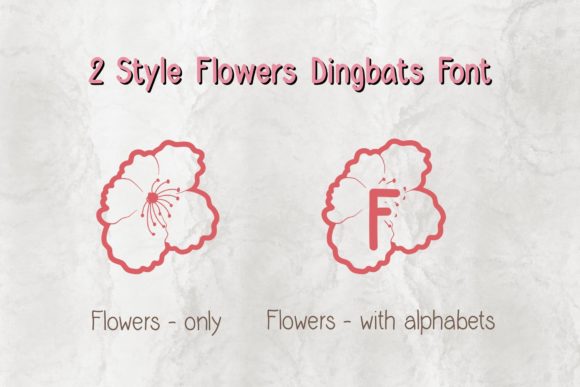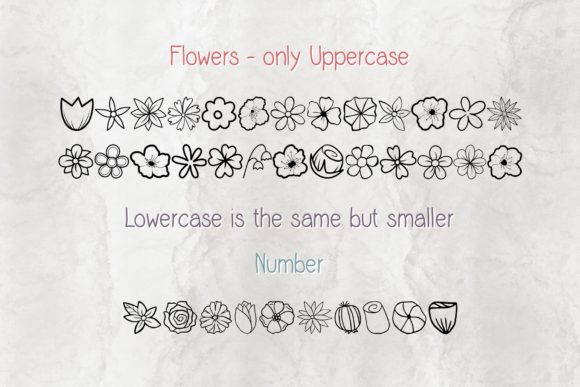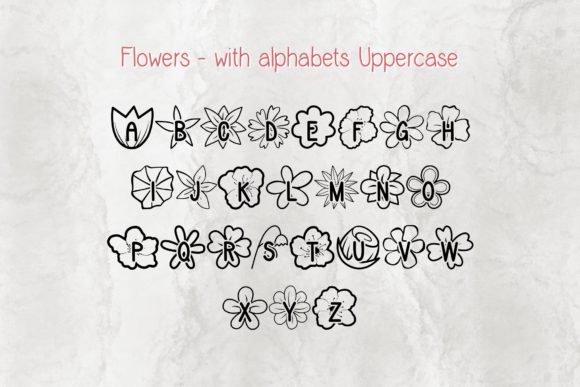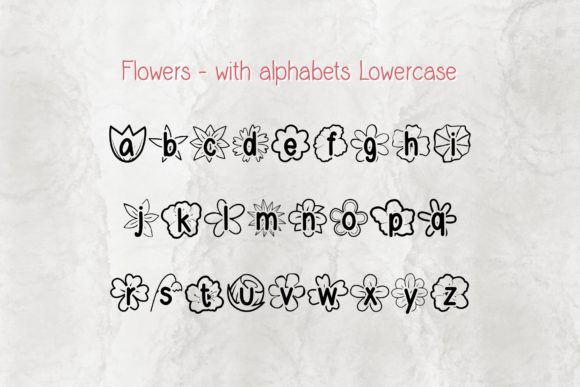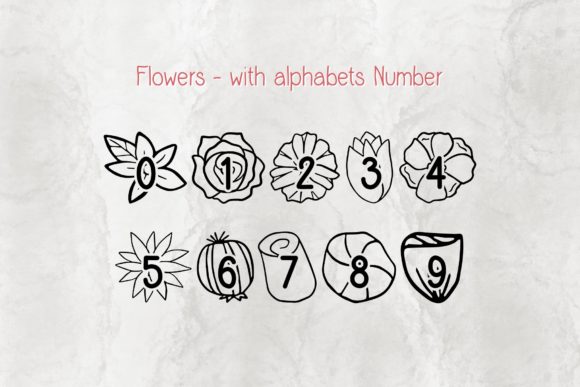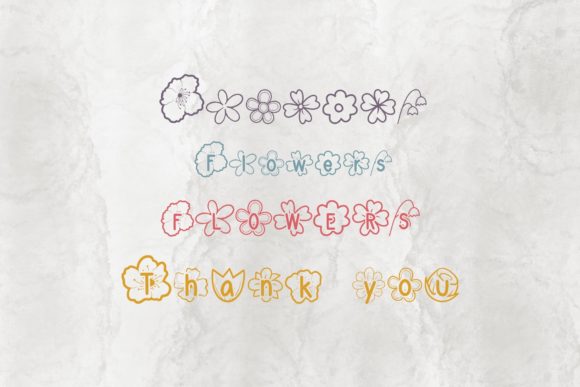
The Sweetest Font Duo: A Deep Dive into Flowers Font
I’ll never forget the time I was working on a branding project for a local florist, and I just couldn’t find the perfect font to capture the essence of their business. The client wanted something cute, sweet, and playful, but also elegant and sophisticated. That’s when I stumbled upon Flowers Font, a charming duo font that includes dingbats and decorative elements. It was love at first sight! 💐
An Honest Review of Flowers Font
- ✨ The font’s playful and whimsical vibe is perfect for a wide range of creative projects, from logos and branding to social media graphics and DIY crafts.
- ✅ The dingbats and decorative elements add a touch of elegance and sophistication, making it suitable for more formal projects as well.
- 💕 The font’s versatility is impressive, with a wide range of use cases, from wedding invitations to packaging design.
While Flowers Font is an amazing font, there are a few things to keep in mind. 🤔 For example:
- ⚠️ The font’s decorative elements can be a bit overwhelming if overused. It’s best to balance them with simpler text elements.
- ⚠️ Some of the glyphs and stylistic alternates can be a bit tricky to access, especially for beginners.
The Backstory of Flowers Font
According to the font’s designer, Flowers Font was inspired by the beauty of nature and the elegance of flowers. The designer wanted to create a font that would capture the essence of spring and summer, with all their vibrant colors and playful vibes.
| Font Name | Flowers Font |
| Author | DREAMs Soul G. |
Q: How do I access the dingbats and decorative elements?
A: The dingbats and decorative elements can be accessed through the OpenType features or glyphs panel in most design software.
Q: Is Flowers Font suitable for body text?
A: While Flowers Font is a beautiful font, it’s best suited for headlines, titles, and short text passages. For body text, a simpler font might be more readable.